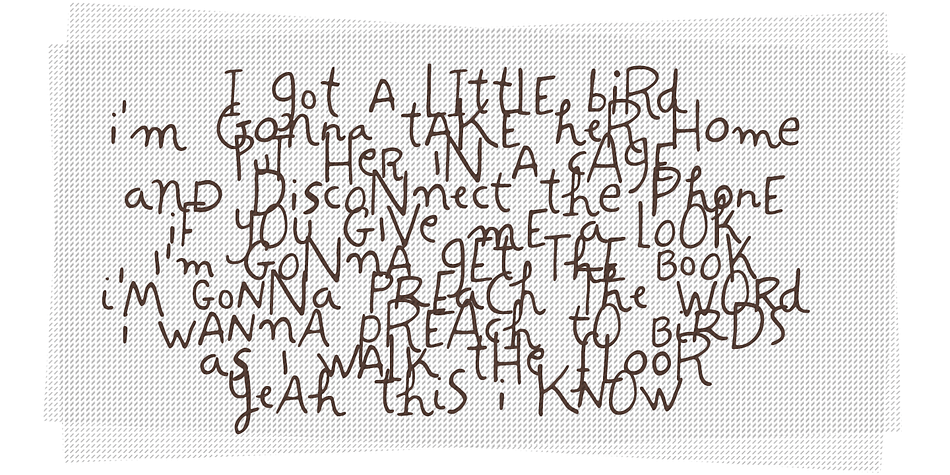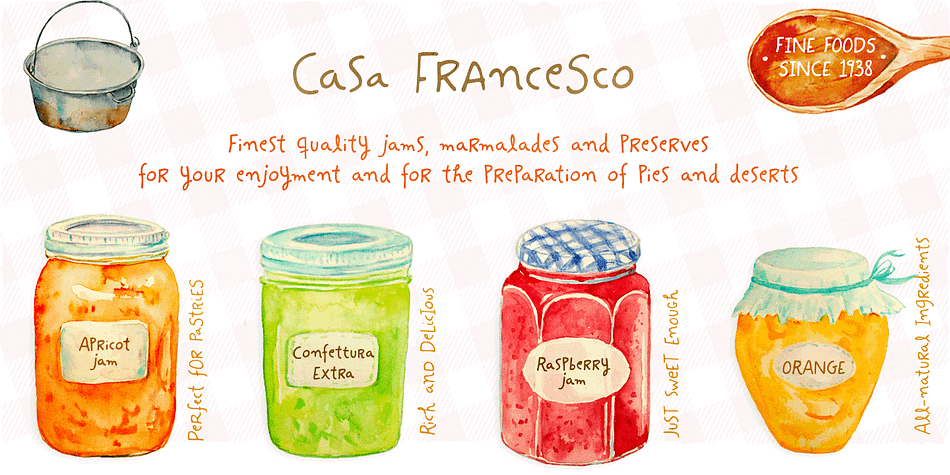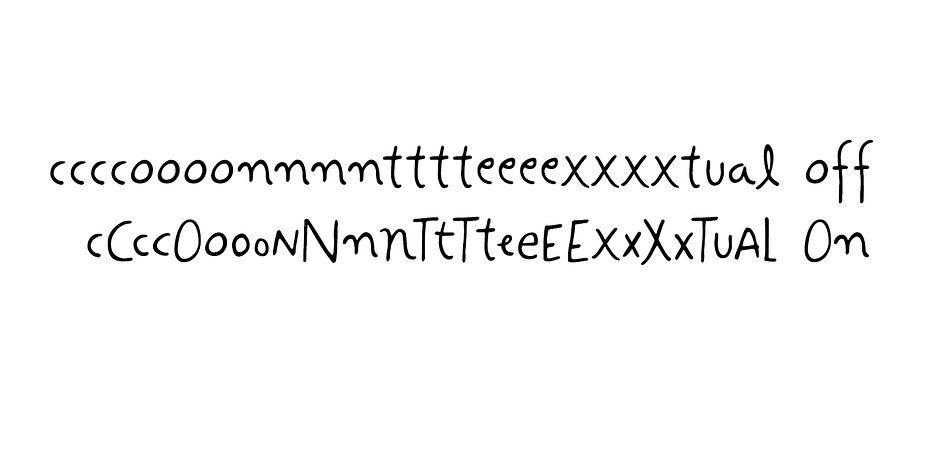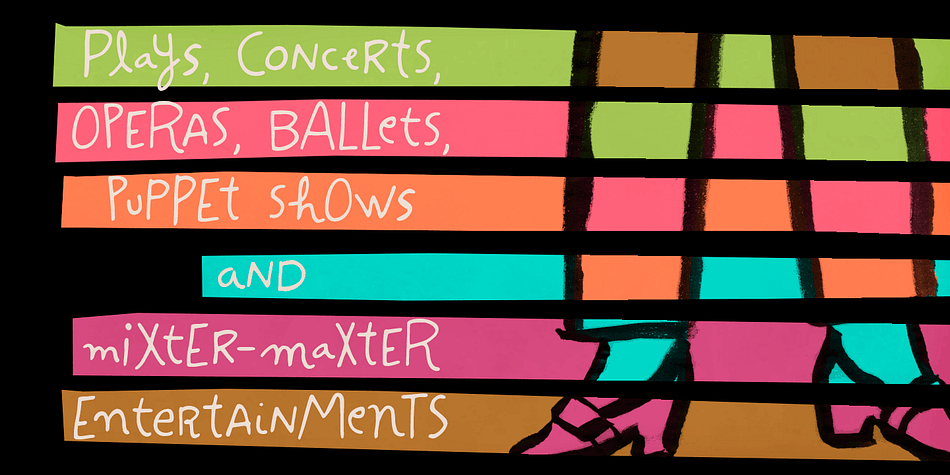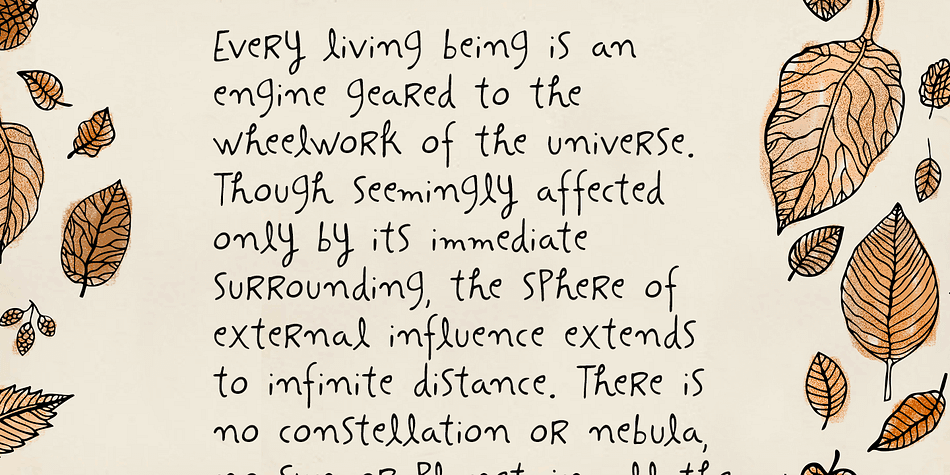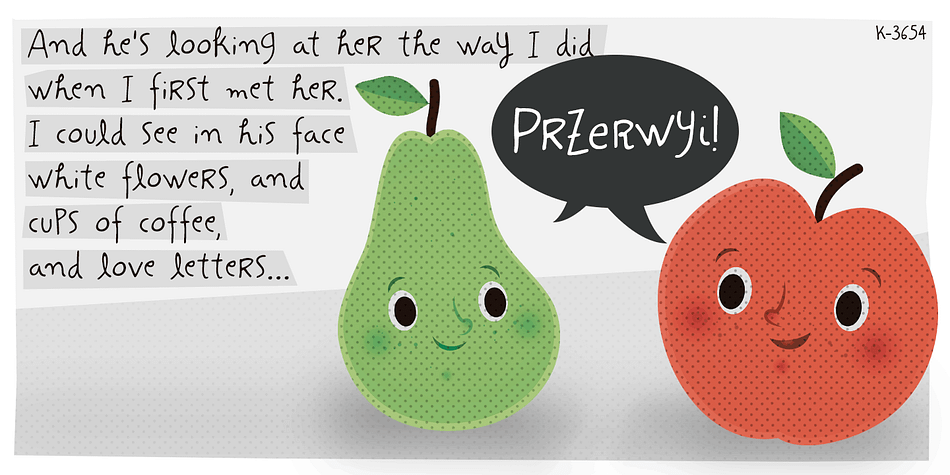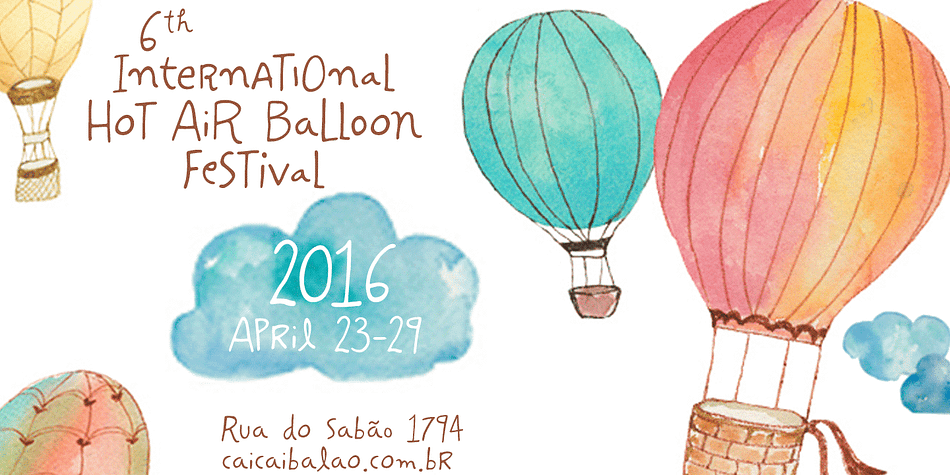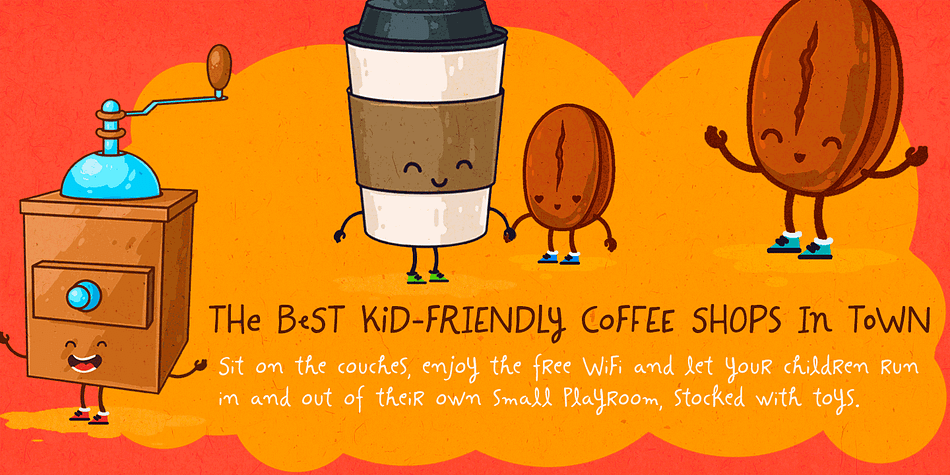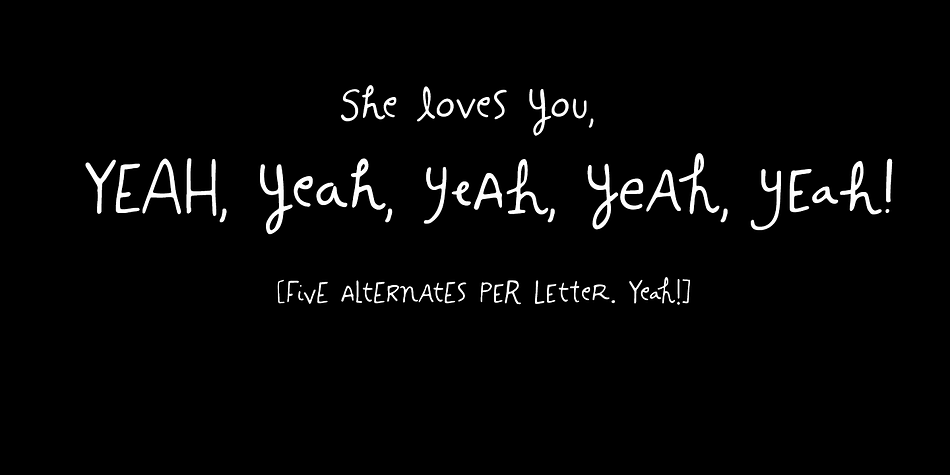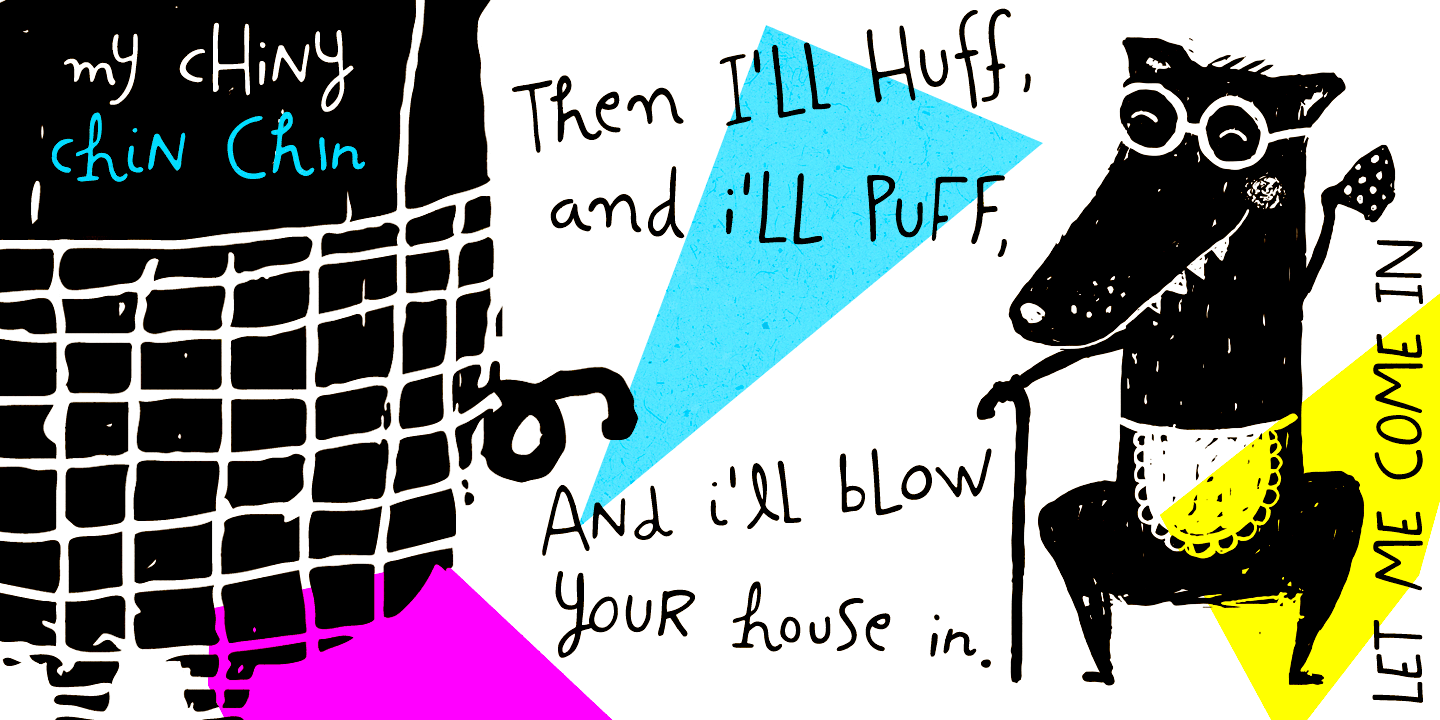
Designed by Ricardo Marcin and Erica Jung, Hand It is a hand drawn font family. This typeface has two styles and was published by PintassilgoPrints.
Carefully messy, sweetly odd, this friendly family conveys a cool - but warm - organic feel.
With mixed letterforms and somewhat unexpected choices here and there, each font brings a handful of alternates for a nice natural look: there are five alternates for letters, three for numbers plus alternates for punctuation marks. All cleverly programmed into Contextual Alternates feature to instantly cycle at your command.
This is not a usual font. Is that one just strange enough to nicely fit a wide range of designs, carrying your idea with plenty of personality. Quite cool. Hand it!